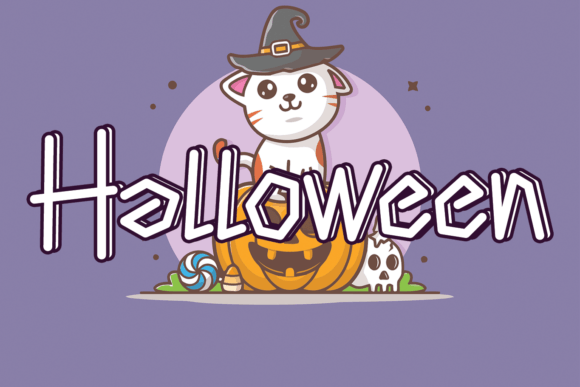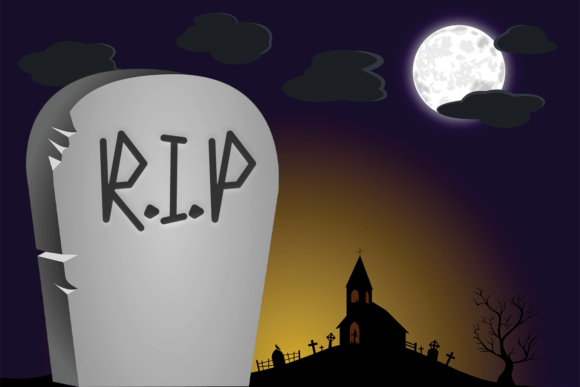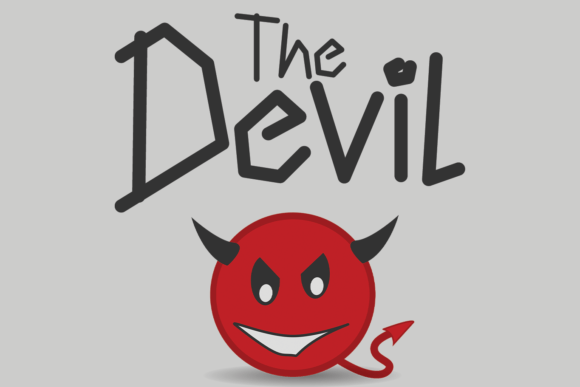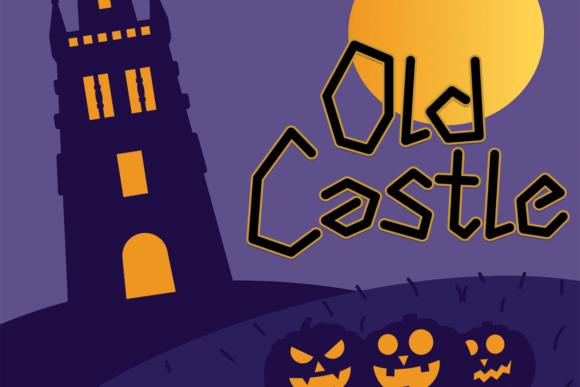
Introduction to Pumpkin Spooky Font
Pumpkin Spooky is a bold and modern display font.
Expertly designed to make your creation look out of this world, this font has the potential to take your creative ideas far further .